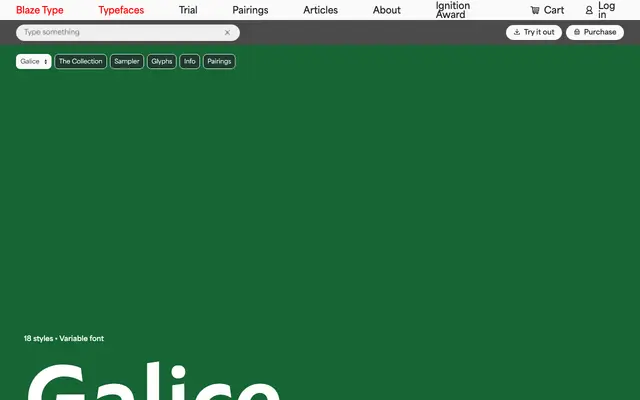
Galice
Blaze Type · Karol Mularczyk · 2025
Galice specimen from Blaze Type
A humanist sans by Karol Mularczyk in nine weights with matching italics, drawing warmth from subtle stroke-width variation and softened terminals.
Released in 2025 by Blaze Type, Galice sits between the crispness of geometric sans serifs and the organic rhythm of handwriting-influenced letterforms. Nine weights from Thin to Black, each with an italic, are packaged as a variable font covering Latin European languages. Its moderate contrast and rounded stroke endings make it equally comfortable in body text and display settings without requiring separate optical cuts.
Blaze Type explicitly describe Galice as a humanist sans serif, citing stroke-width variation, organic curves and a rhythm that echoes handwriting rather than geometric construction.